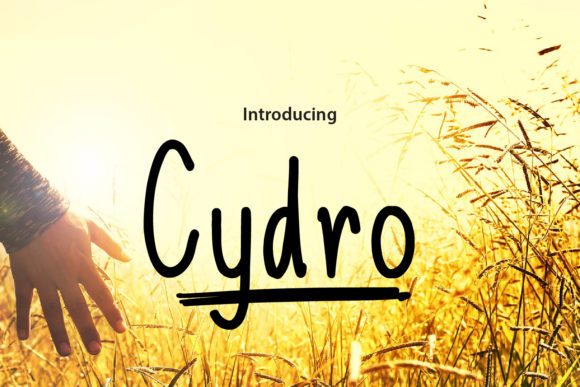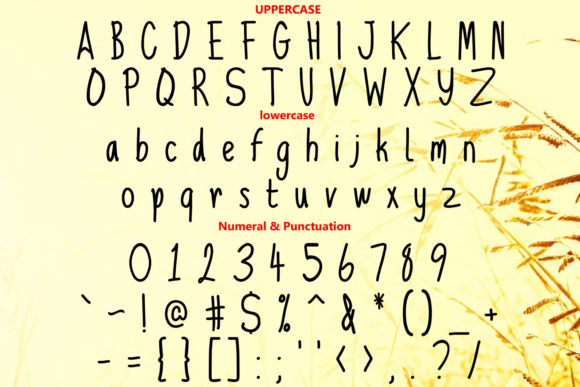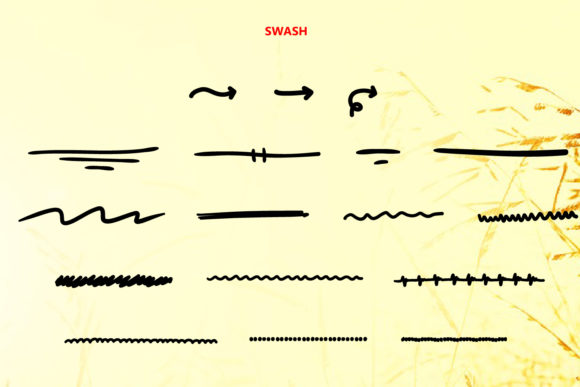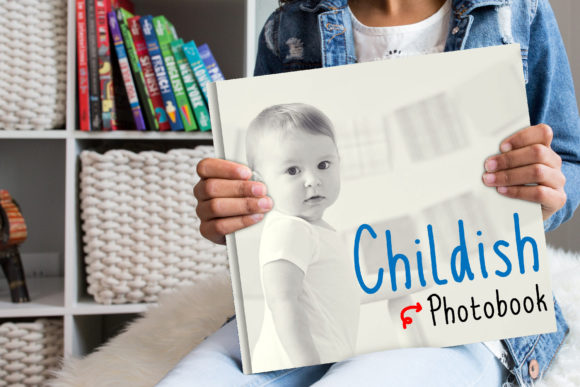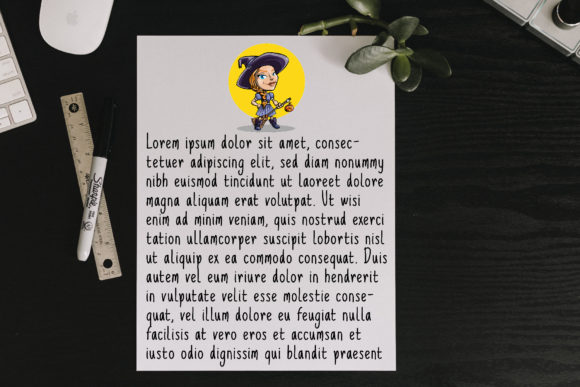
Cydro Font
About Cydro Font
Cydro is a cute and casual handwritten font with an incredibly friendly feel. Use this gorgeous and unique font to bring any DIY project to life!